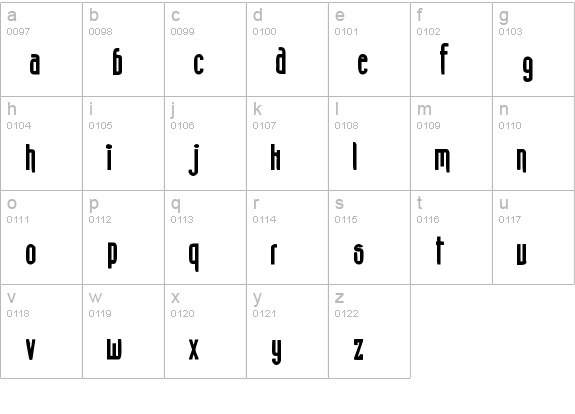
Concrete Shoes Font Details
Concrete Shoes font is a bold and impactful typeface that exudes strength and stability. Its rugged appearance gives off a sense of industrial charm, making it perfect for designs that require a touch of urban grit. The bold, blocky letterforms of Concrete Shoes font are ideal for headlines, posters, and branding projects that demand attention. This versatile font is not only visually striking but also highly legible, ensuring that your message comes across loud and clear. Whether you're aiming for a modern and edgy look or a more traditional and sturdy vibe, Concrete Shoes font has got you covered. Best of all, Concrete Shoes font is available for free download at FontsMarket.com, making it an accessible choice for designers looking to add a touch of toughness to their projects without breaking the bank. Download Concrete Shoes font today and let your designs stand out with its bold and distinctive style.